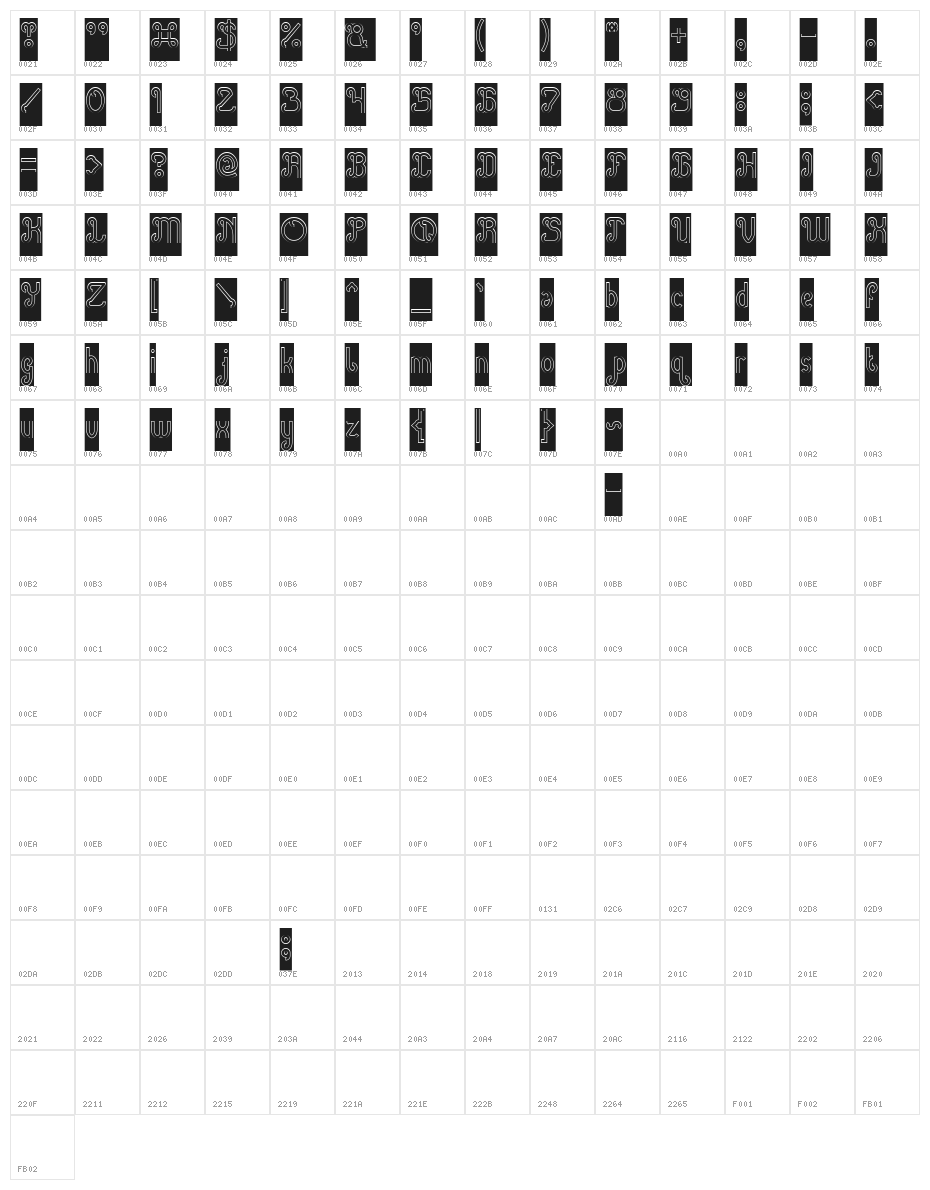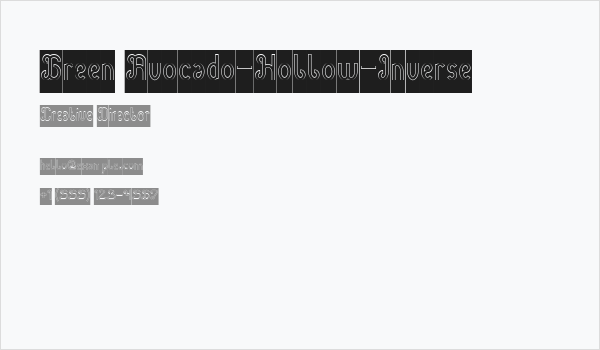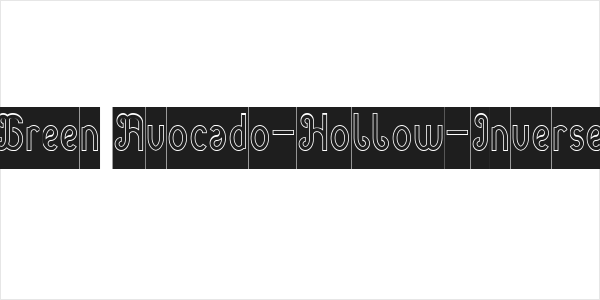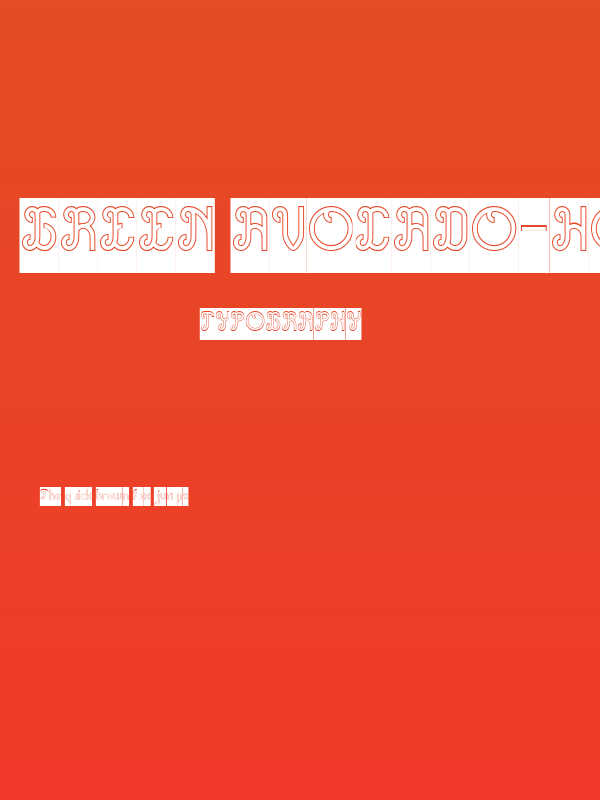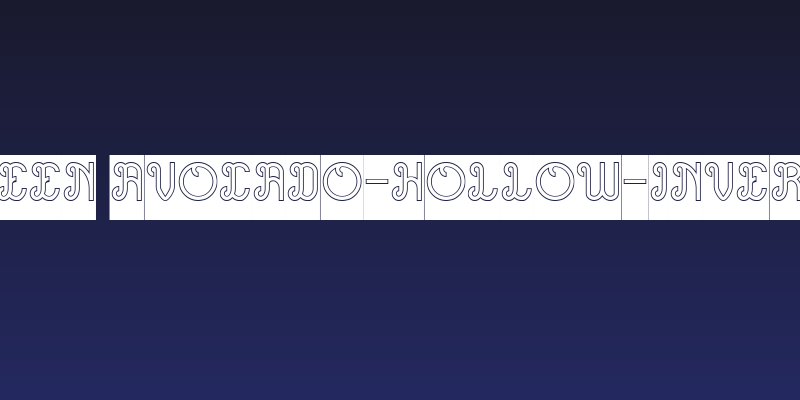
Green Avocado-Hollow-Inverse Font
Green Avocado-Hollow-Inverse Description
This font features a unique hollow design with an inverse style, where the interior of each character is outlined, creating a striking visual effect. The uppercase and lowercase letters maintain a consistent style, with rounded edges and a playful, decorative appearance. The numerals and special characters follow the same design principles, ensuring a cohesive look across all elements. The font's distinct style makes it ideal for creative projects that require a bold and artistic touch.
| Proposed Projects | Ideal for posters, branding, logos, and creative design projects that require a bold and artistic touch. |